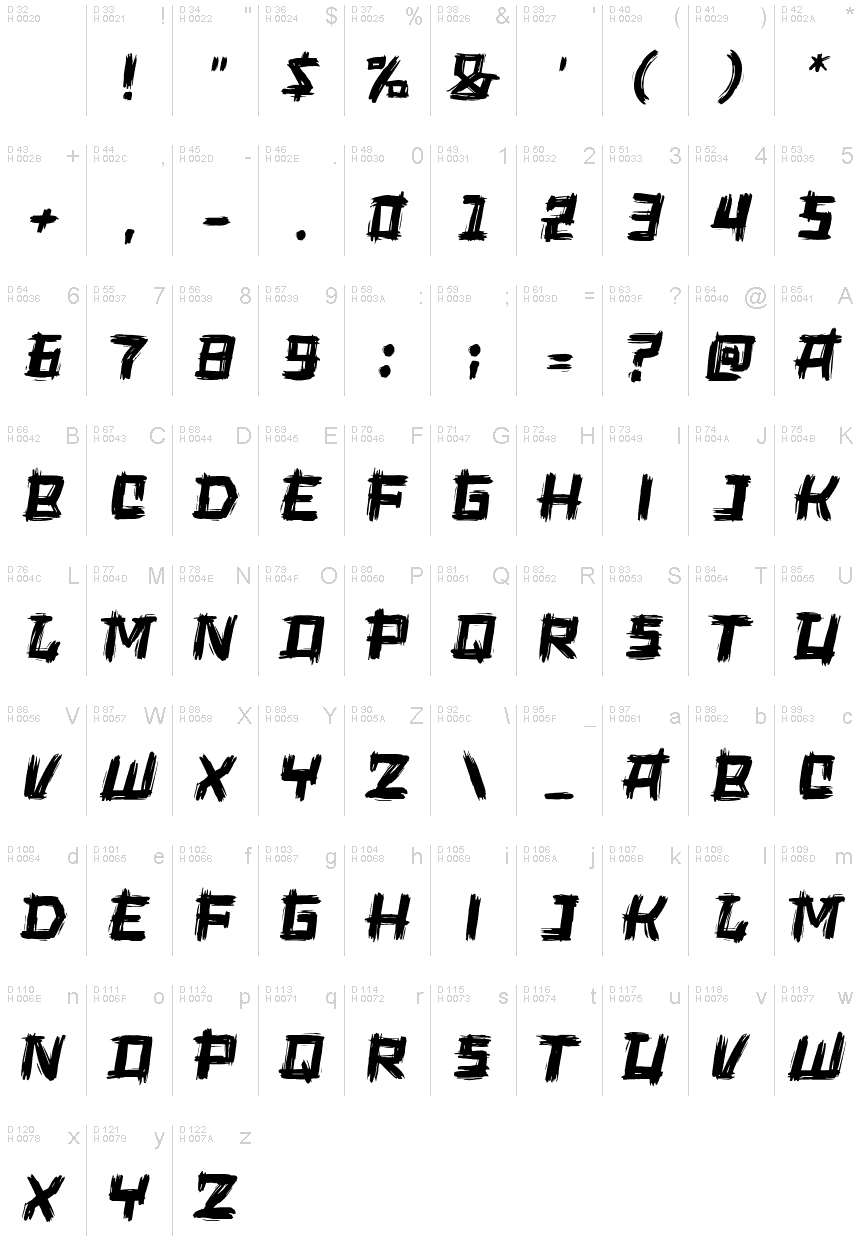
Sankyu
Sankyu, a captivating dry brush font designed by Khurasan, brings the essence of Japanese aesthetics to life. With its extra-bold weight and semi-expanded width, this versatile typeface is perfect for a variety of projects. Its bold strokes and dynamic characters make it ideal for eye-catching headlines in advertising campaigns or bold titles in movie posters. Sankyu's elegant yet edgy style also lends itself well to fashion magazines, album covers, and modern packaging designs. Embrace the richness of Japanese culture with Sankyu as your go-to font for creating visually stunning and impactful designs.